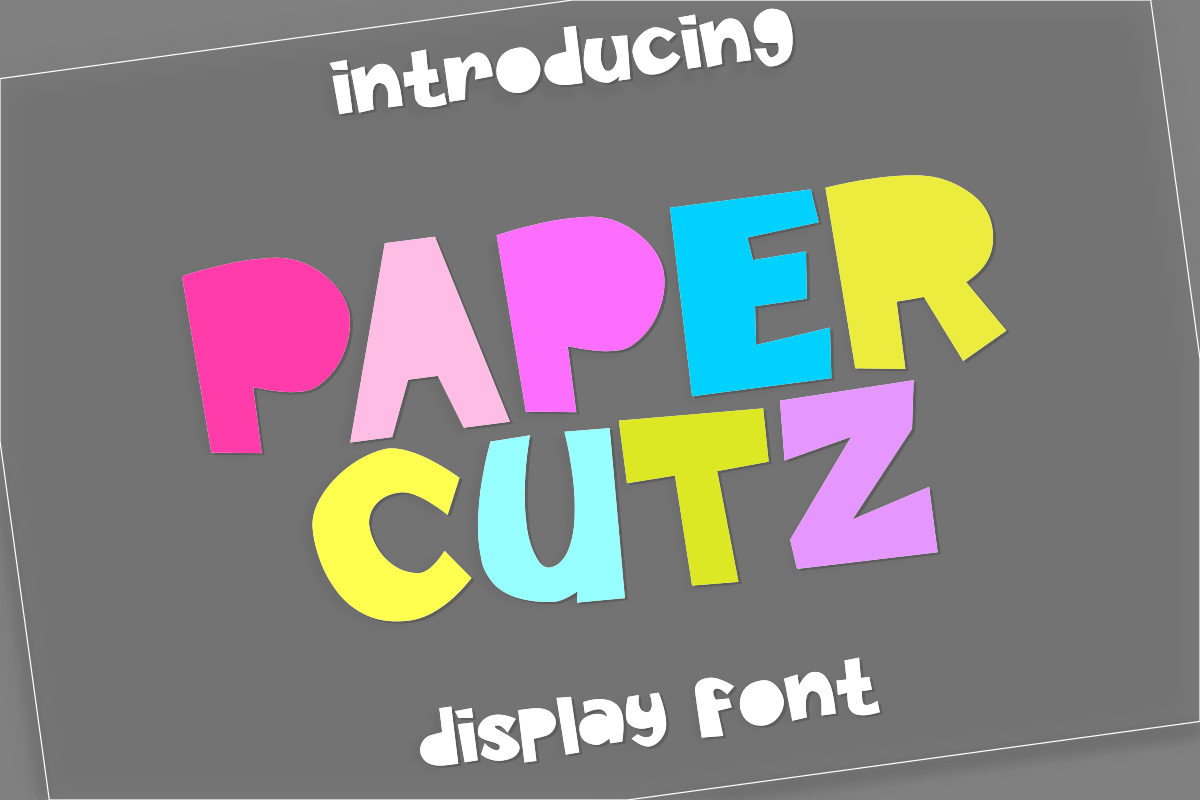
Paper Cutz Display Font
Paper Cutz
Paper Cutz is a playful display font. Suitable for logos, packaging designs, banners, posters, merchandises, tshirts, books or any design needs a display font.